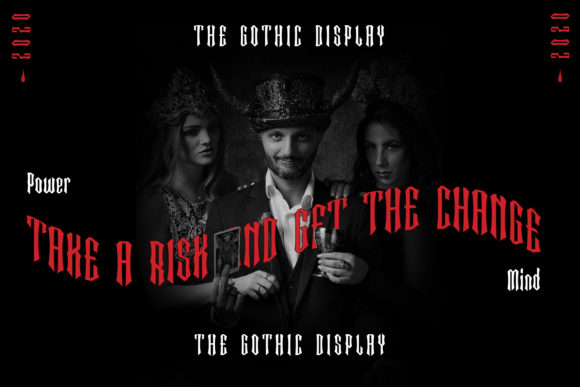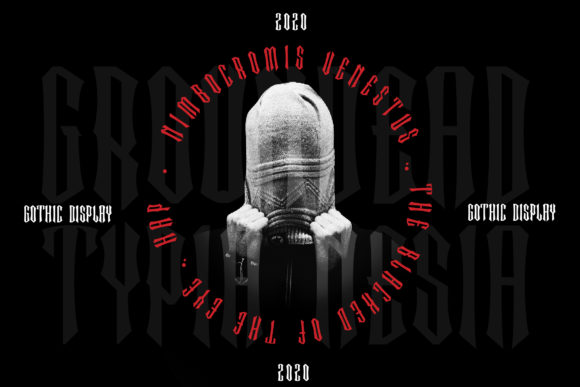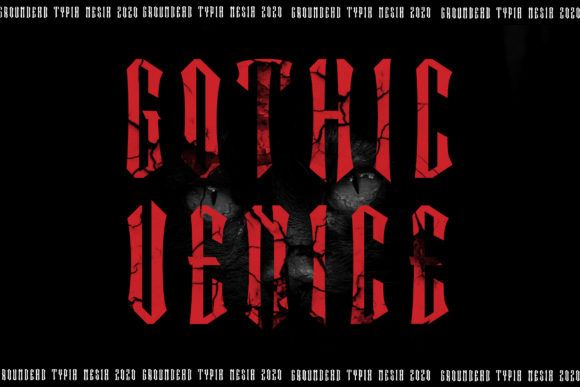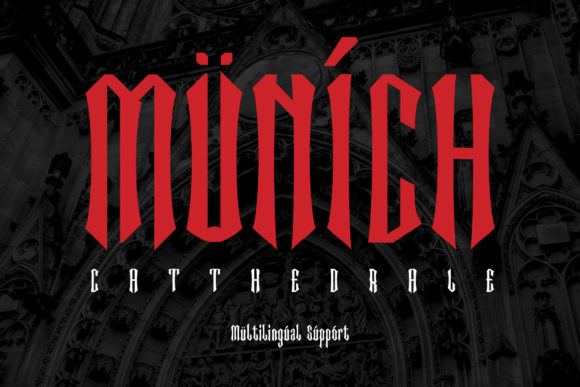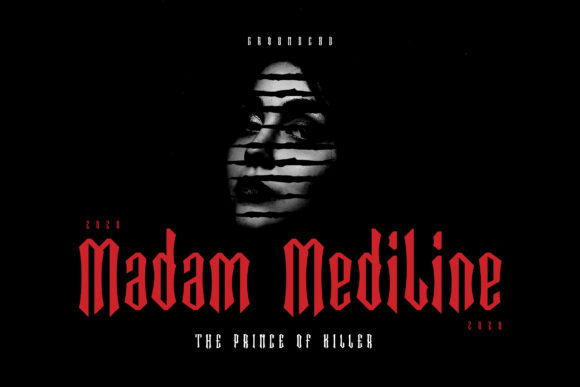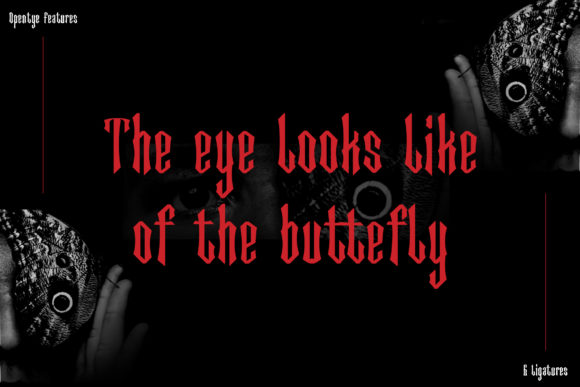
Introducing Groundead Font: The Bold and Dramatic Blackletter Font
Are you tired of using the same old fonts for your creative projects? Do you want to add a touch of drama and elegance to your designs? Look no further than the Groundead Font, a bold and dramatic blackletter font that’s sure to make your ideas stand out.
What is Groundead Font?
Groundead Font is a type of blackletter font, characterized by its dramatic and ornate letterforms. Blackletter fonts have been around for centuries, originating in medieval Europe, and are known for their bold and intricate designs. Groundead Font takes this classic style and updates it for modern use, making it perfect for a wide range of creative projects.
Key Features of Groundead Font
- Bold and Dramatic: Groundead Font is a bold and dramatic font that’s sure to grab attention. Its thick lines and ornate details make it perfect for headlines, titles, and other display text.
- Unique Letterforms: Each letter in Groundead Font has been carefully crafted to be unique and visually striking. The font features intricate details and flourishes that add to its dramatic effect.
- Highly Versatile: Despite its bold and dramatic style, Groundead Font is highly versatile and can be used in a wide range of creative projects, from logos and branding to posters and packaging.
- Easily Readable: Despite its ornate design, Groundead Font is surprisingly easy to read, making it perfect for use in both digital and print materials.
Uses for Groundead Font
So, what can you use Groundead Font for? The possibilities are endless! Here are a few ideas to get you started:
- Logos and Branding: Use Groundead Font to create a bold and memorable logo for your business or brand.
- Posters and Flyers: Add some drama and flair to your posters and flyers with Groundead Font.
- Packaging: Use Groundead Font to create eye-catching packaging for your products.
- Social Media Graphics: Add some personality to your social media graphics with Groundead Font.
- Invitations and Announcements: Use Groundead Font to create elegant and sophisticated invitations and announcements.
Tips for Using Groundead Font
Here are a few tips for getting the most out of Groundead Font:
- Use it sparingly: Due to its bold and dramatic style, Groundead Font is best used sparingly. Use it for headlines and titles, and pair it with a simpler font for body text.
- Experiment with colors: Groundead Font looks great in a variety of colors, so don’t be afraid to experiment and find the perfect hue for your project.
- Pay attention to spacing: Due to its ornate design, Groundead Font requires careful attention to spacing. Make sure to leave enough space between letters and lines to create a clean and elegant look.
Groundead Font is a bold and dramatic blackletter font that’s sure to add a touch of elegance and sophistication to your creative projects. With its unique letterforms, highly versatile design, and easily readable style, it’s perfect for a wide range of applications. Whether you’re a designer, crafter, or simply someone looking to add some drama to your projects, Groundead Font is a great choice. So why not give it a try and see how it can elevate your designs?